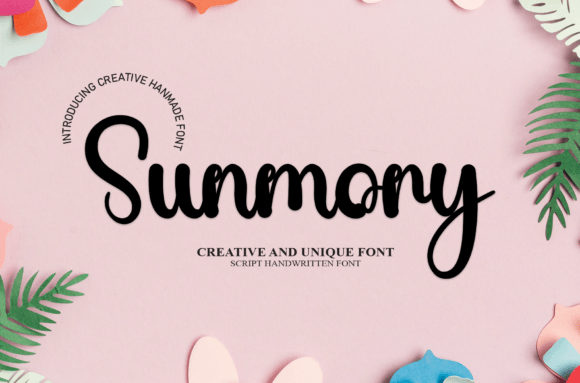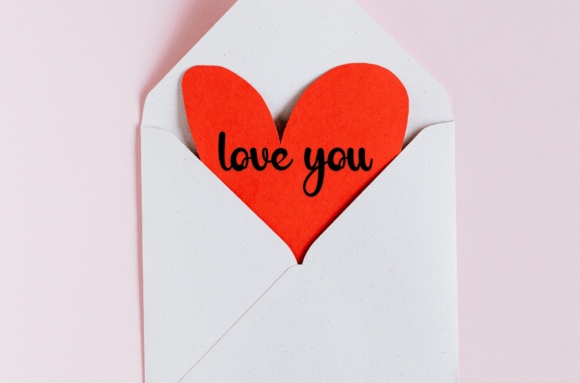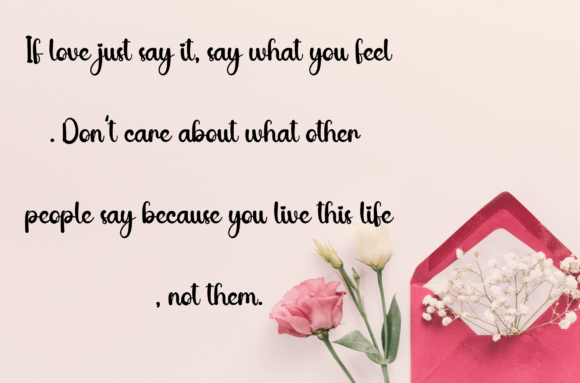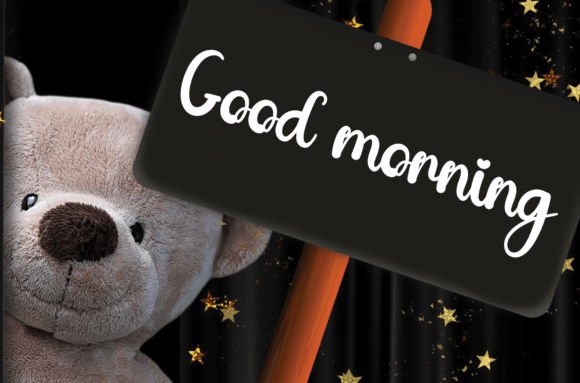
About Sunmory Font
Sunmory Font is a sweet and friendly handwritten typeface that brings a warm, personal touch to your design projects. Its fun and relaxed style makes it perfect for any design that needs a lovely and heartfelt feel. Whether you’re creating wedding invitations, greeting cards, or personalized stationery, Sunmory adds a natural, handwritten charm that connects with your audience.
Ideal for Special Occasions and Everyday Creativity
Sunmory’s casual and inviting style makes it well suited for special events such as weddings, birthdays, and anniversaries. Its smooth strokes and gentle curves help create a sense of warmth and joy, making your designs feel unique and sincere.
Besides formal occasions, Sunmory works well for everyday creative projects like scrapbooking, journaling, social media graphics, and branding for small businesses that focus on handmade or artisanal products.
Why Choose Sunmory Font?
Sunmory is loved because of its:
Friendly and rounded letterforms that give a warm and approachable feel
Balanced design that ensures easy reading at all sizes
Versatility for print and digital media
These features make Sunmory a great choice for both professional designers and hobbyists.
Add Personality and Warmth to Your Designs
Typography plays a key role in shaping the emotion of your message. Sunmory’s handwritten style adds warmth and personality, making your wedding invitations more intimate, your cards more touching, and your branding more authentic.
With Sunmory, your designs will stand out by expressing friendliness, sincerity, and charm.
Versatile Uses for Sunmory Font
Sunmory adapts well to many design needs, such as:
Wedding invitations and save-the-date cards
Greeting cards and thank-you notes
Branding for handmade and boutique products
Social media posts and inspirational quotes
Product packaging and labels
Personalized gifts and DIY crafts
Its casual elegance lets it fit both playful and refined themes.
To conclude, Sunmory Font is a charming handwritten script that combines friendliness, fun, and elegance. It is perfect for adding a lovely and personal touch to a wide range of creative projects. Whether for weddings, special events, or everyday design, Sunmory helps you communicate your message with warmth and style.